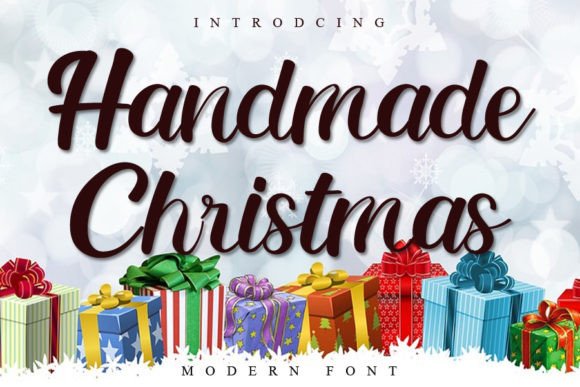
Handmade Christmas Font
Adorn your designs with the enchanting touch of Handmade Christmas, a font born from the spirit of the yuletide season. This captivating script, a brainchild of ABBAsalam, weaves a tale of warmth, elegance, and timeless appeal.
Crafted with meticulous care, Handmade Christmas is not just a font; it's an ode to the festive cheer that fills the air during the holidays. Its graceful strokes and playful curves evoke the magic of frosty mornings, the twinkle of fairy lights, and the joyous laughter of children.
Unlike ordinary fonts that blend into the background, Handmade Christmas commands attention and leaves a lasting impression. Its bold presence makes it ideal for business logos, where it will serve as a beacon of distinction, attracting customers and setting your brand apart from the competition.
This versatile font is a treasure trove of possibilities, lending its charm to an array of design projects. Whether you're creating Youtube banners to capture viewers' imaginations or designing wedding invitations that exude romance and elegance, Handmade Christmas is your perfect companion.
Harness the power of simplicity and uniqueness with Handmade Christmas. Its clean lines and distinctive style make it a standout choice for ID cards, flyers, and crafts. Its ability to elevate even the most mundane designs into works of art is truly remarkable.
Embark on a creative journey with Handmade Christmas and unlock a world of design possibilities. Let your imagination soar as you craft designs that resonate with the warmth and cheer of the holiday season.